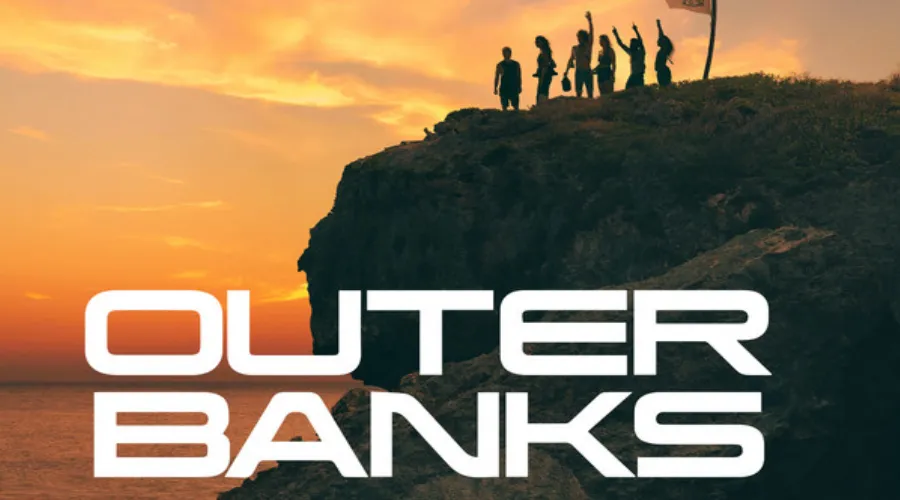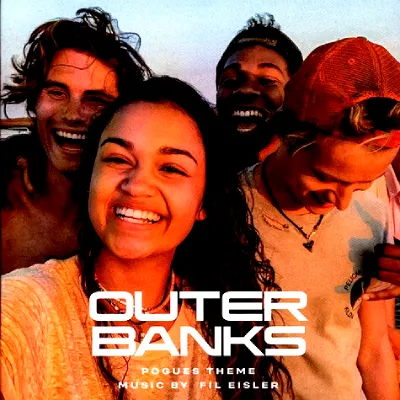
Short answer: Korataki is a close visual match for the wide, square Outer Banks wordmark on the 2020 Pogues Theme single artwork shown here, but no Netflix source reviewed for this guide credits it as the series font. The Korataki.otf preview file identifies itself as Bold, not Regular.
Korataki | Close visual match
Controller-Ext | General alternative
Artwork and campaign scope
This comparison is limited to the “OUTER BANKS / POGUES THEME / MUSIC BY FIL EISLER” image above. The 2020 single release identifies that campaign, while the official Netflix series page shows the wider, multi-season property. Neither source publishes a font credit. Season title cards, soundtrack covers, trailers, and merchandise may use different treatments.
Korataki comparison
Typodermic describes Korataki as a wide, square industrial sans with seven weights plus italics. Its clean corners, extended proportions, and alternate letterforms explain the resemblance. The foundry says Korataki was originally commissioned for BioWare’s Mass Effect series—not for Outer Banks—so the responsible label here is visual match.
Controller as an alternative
The Controller preview file uses the internal family name ControllerExtW01-Five. Its rounded geometric width can support a similar mood, but the R, S, and spacing differ enough that it should not be called a replica or Netflix asset.